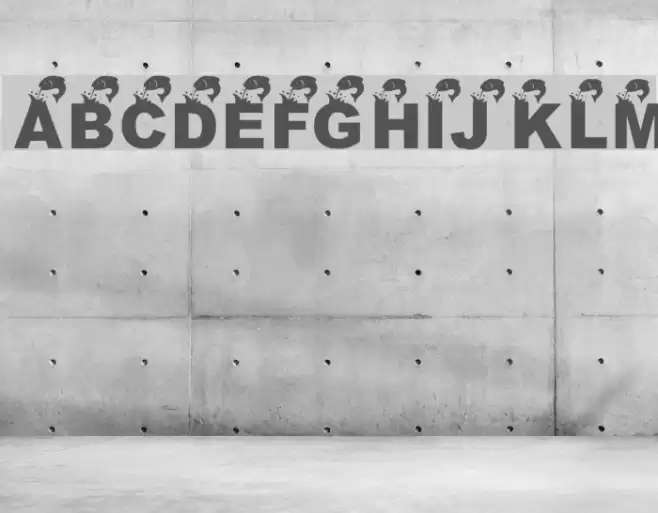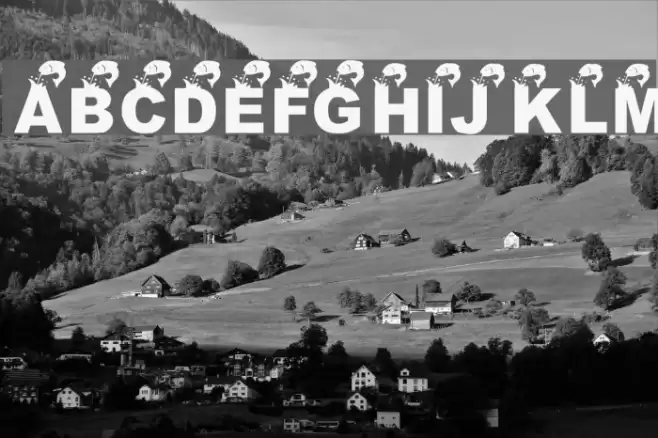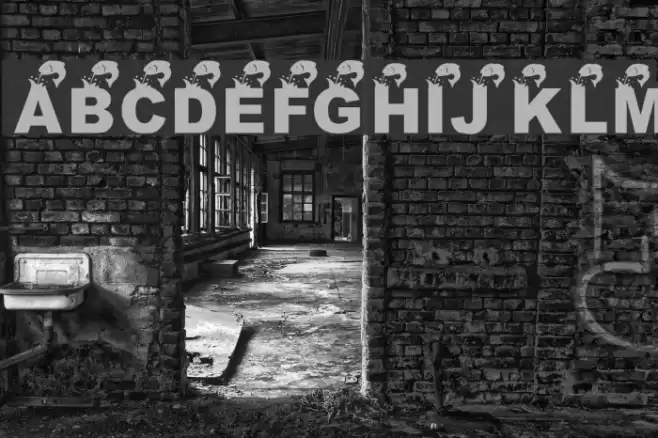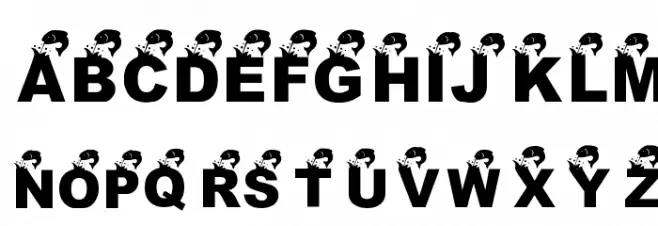
KR Angler Font
KR Angler Description
This font features bold, uppercase letters with a unique decorative element. Each character is accompanied by a stylized fish graphic, creating a playful and thematic design. The letters are evenly spaced and maintain a consistent weight throughout, providing a strong visual impact. The font is ideal for projects that require a fun and engaging aesthetic, particularly those related to aquatic themes or children's content. The boldness of the characters ensures readability while the decorative elements add a distinctive flair.
A bold, decorative font with fish graphics for a playful aquatic theme from Uncategorized fonts.
- Proposed Projects: Ideal for children's books, aquatic-themed posters, event invitations, and playful branding.